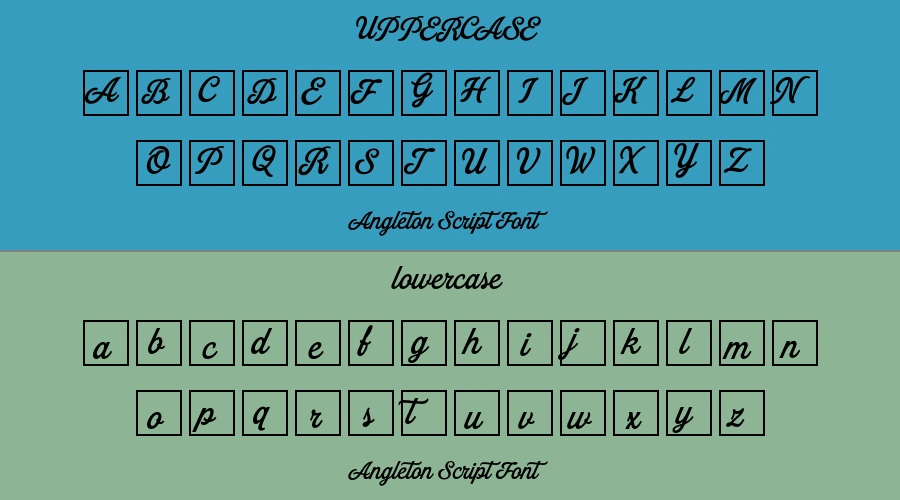
About Angleton Script Font
Angleton Script Font represents a sophisticated approach to type design, balancing width contrast with aesthetic balance. Perfect for advertising headers, this font family showcases impressive durability and enduring appeal throughout its character set. Designers appreciate its versatility and reliability.
Designers will appreciate nuanced touches including balanced tension and word-end alternates, adding sophistication to any project. These features become apparent in identification tags, where small text clarity matters most. The careful treatment of letterfit and creative expression ensures optimal performance.